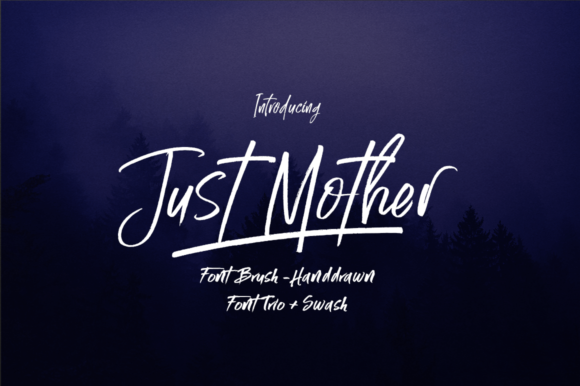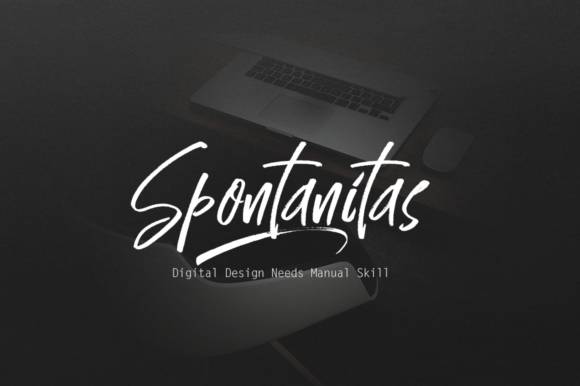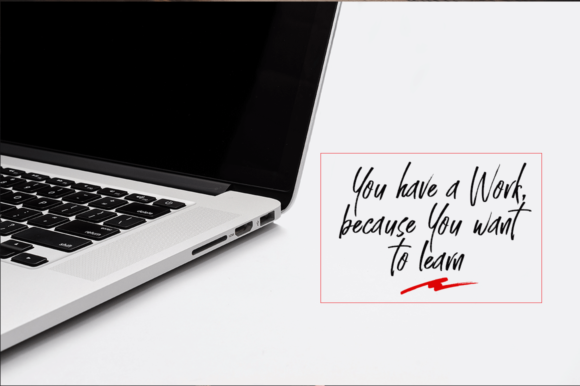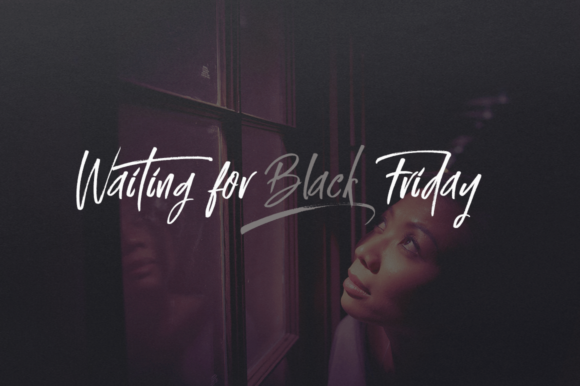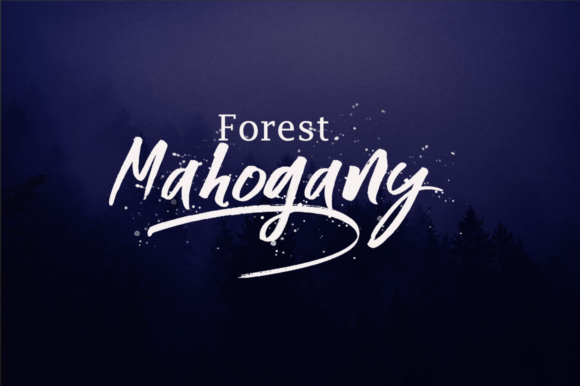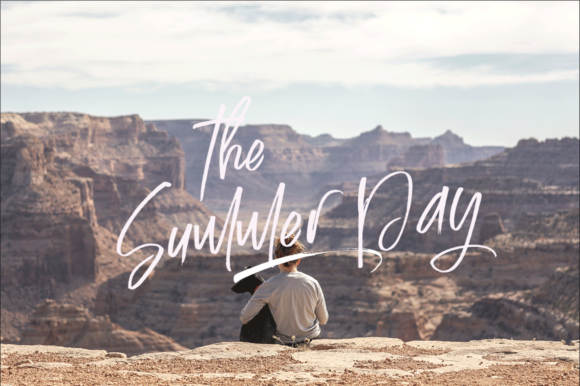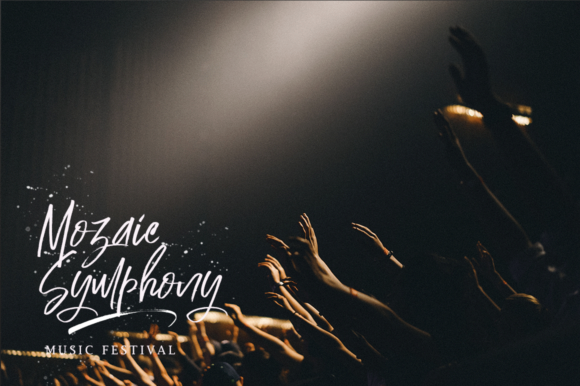
Just Mother Font
About Just Mother Font
Just Mother is a hand drawn brush font which comes in three variations: regular, bold and alt. Each variation has its own style which make the design possibilities endless.